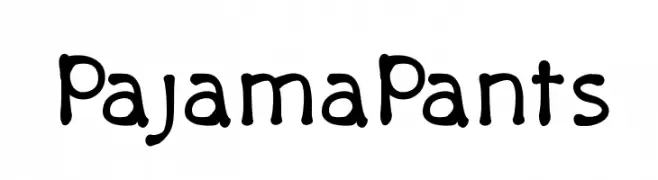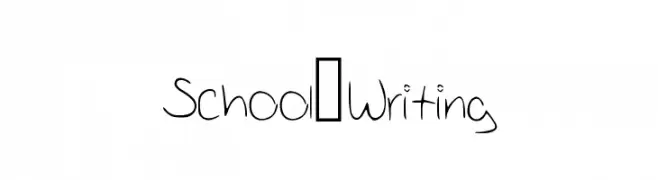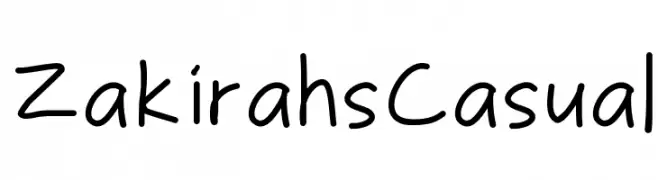
A casual, handwritten font with fluid, slightly irregular strokes.
A casual, handwritten font with a playful and informal style.
A playful, handwritten font with a casual and informal style.
A playful, casual handwritten font with dynamic strokes.
A playful, informal handwritten font with whimsical letterforms.
A playful, handwritten font with a casual and dynamic style.
A playful, casual handwritten font with irregular strokes and a whimsical style.
A playful, handwritten font with bold, expressive strokes and a casual style.
A bold, handwritten font with a playful and informal style.
A playful, casual handwritten font with uneven strokes and a spontaneous feel.
A casual, handwritten font with a playful and informal style.
A playful, informal handwritten font with a casual and friendly vibe.
A playful, casual handwritten font with uneven strokes and a personal touch.
A playful, informal handwritten font with uneven strokes and a lively appearance.
A playful, casual handwritten font with an organic, lively style.
A playful, casual handwritten font with dynamic strokes.
A playful, handwritten font with a casual and dynamic style.
A playful, hand-drawn font with tall, narrow letters and a whimsical charm.
A playful, handwritten font with rounded, informal letterforms.